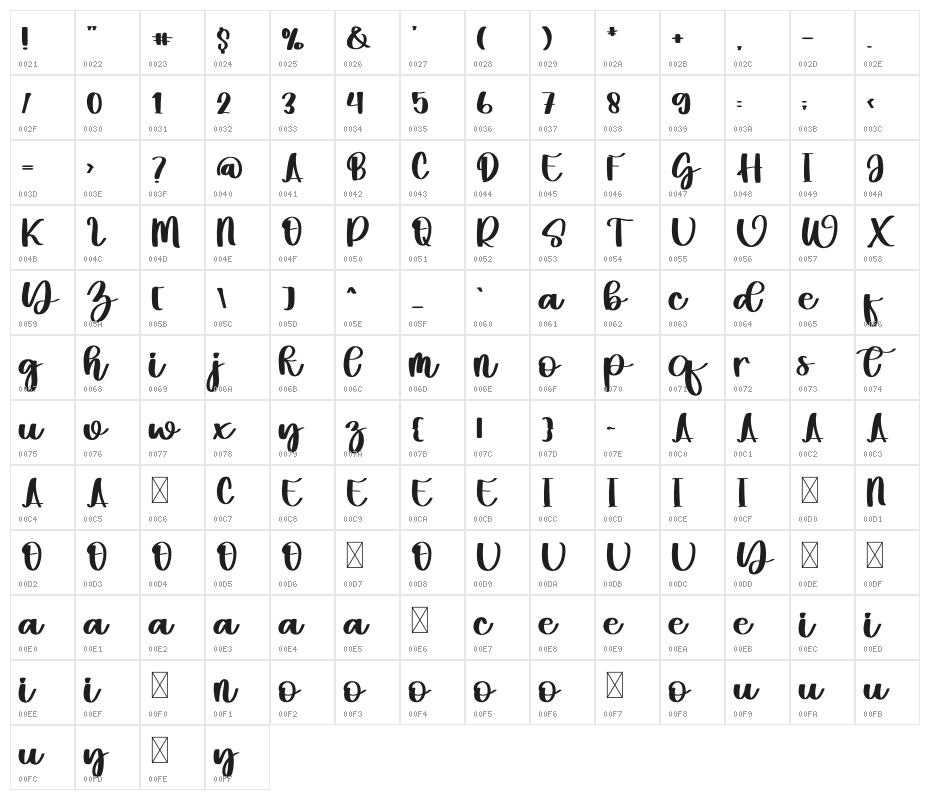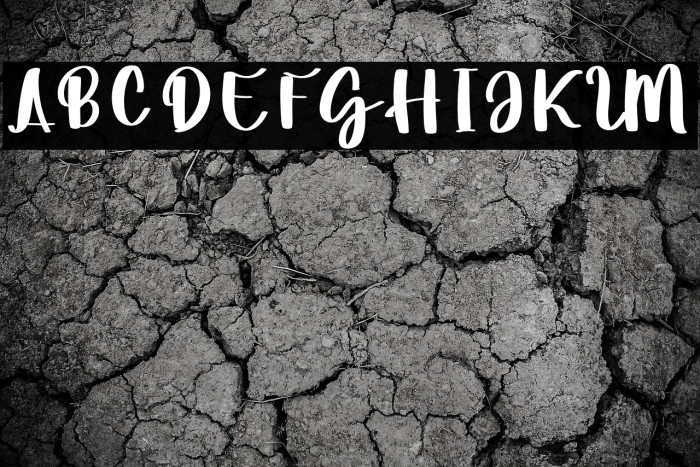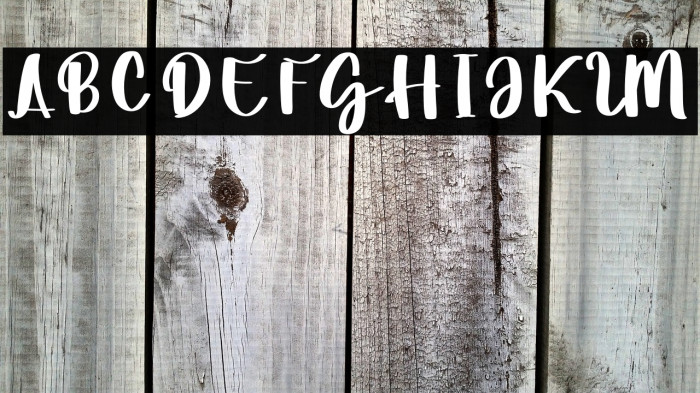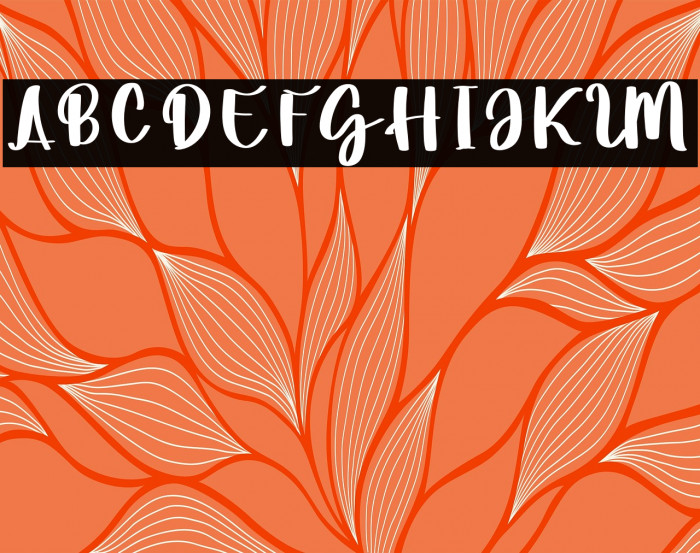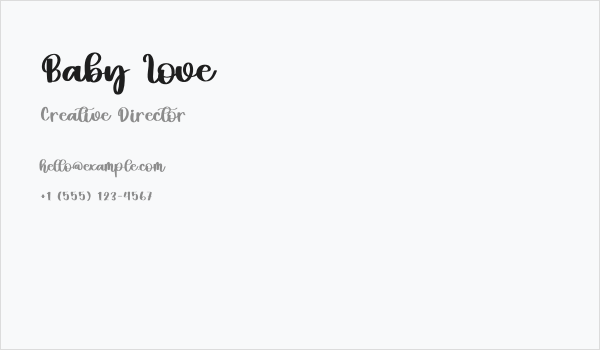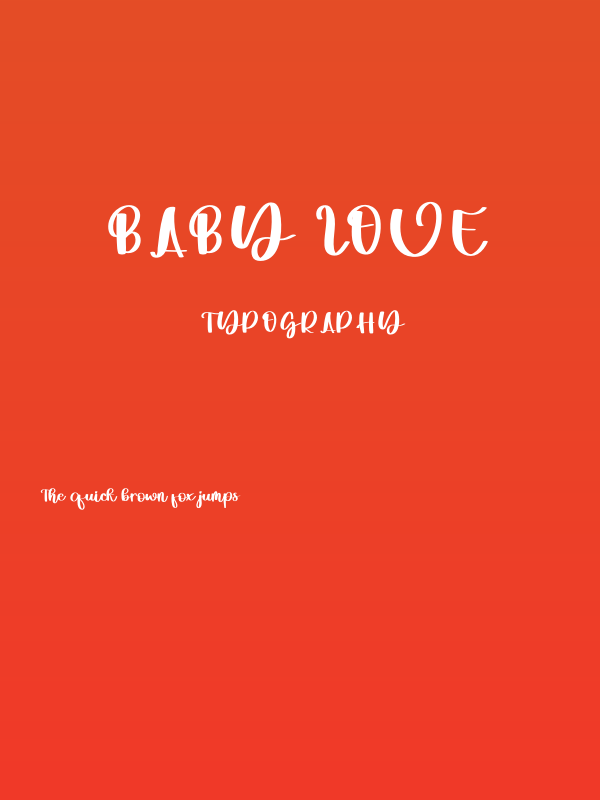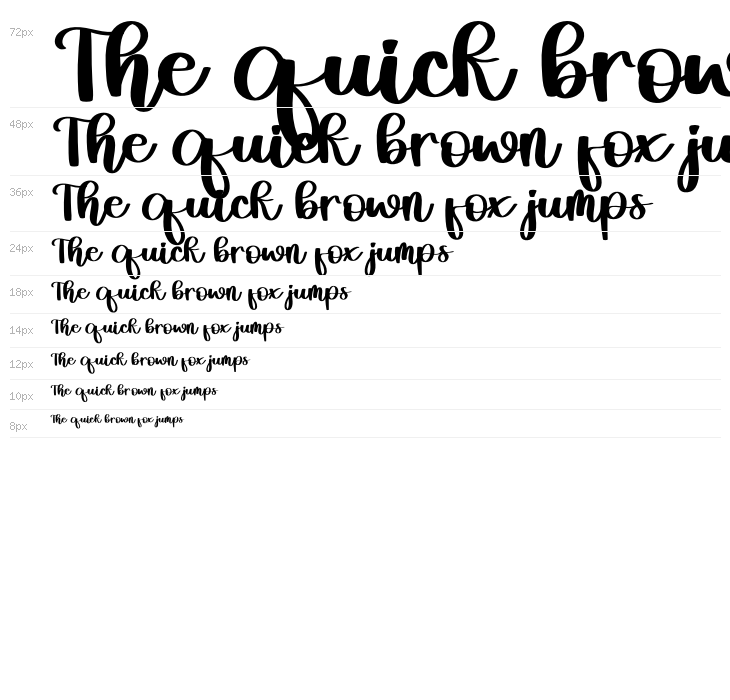
Baby Love Font
Baby Love Description
This font features a playful and whimsical script style, characterized by its bold and flowing letterforms. The uppercase letters are distinct with a slight slant, while the lowercase letters exhibit a more cursive and connected appearance. The numbers and special characters maintain the same lively aesthetic, making them suitable for creative and informal designs. The overall look is both charming and dynamic, ideal for projects that require a touch of personality and flair.
| Proposed Projects | Ideal for greeting cards, invitations, playful branding, and children's book covers. |